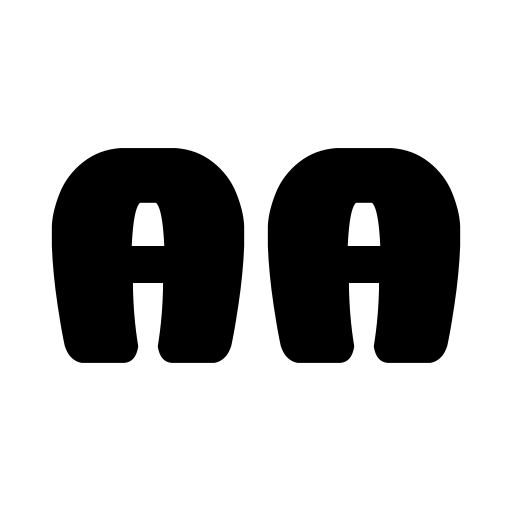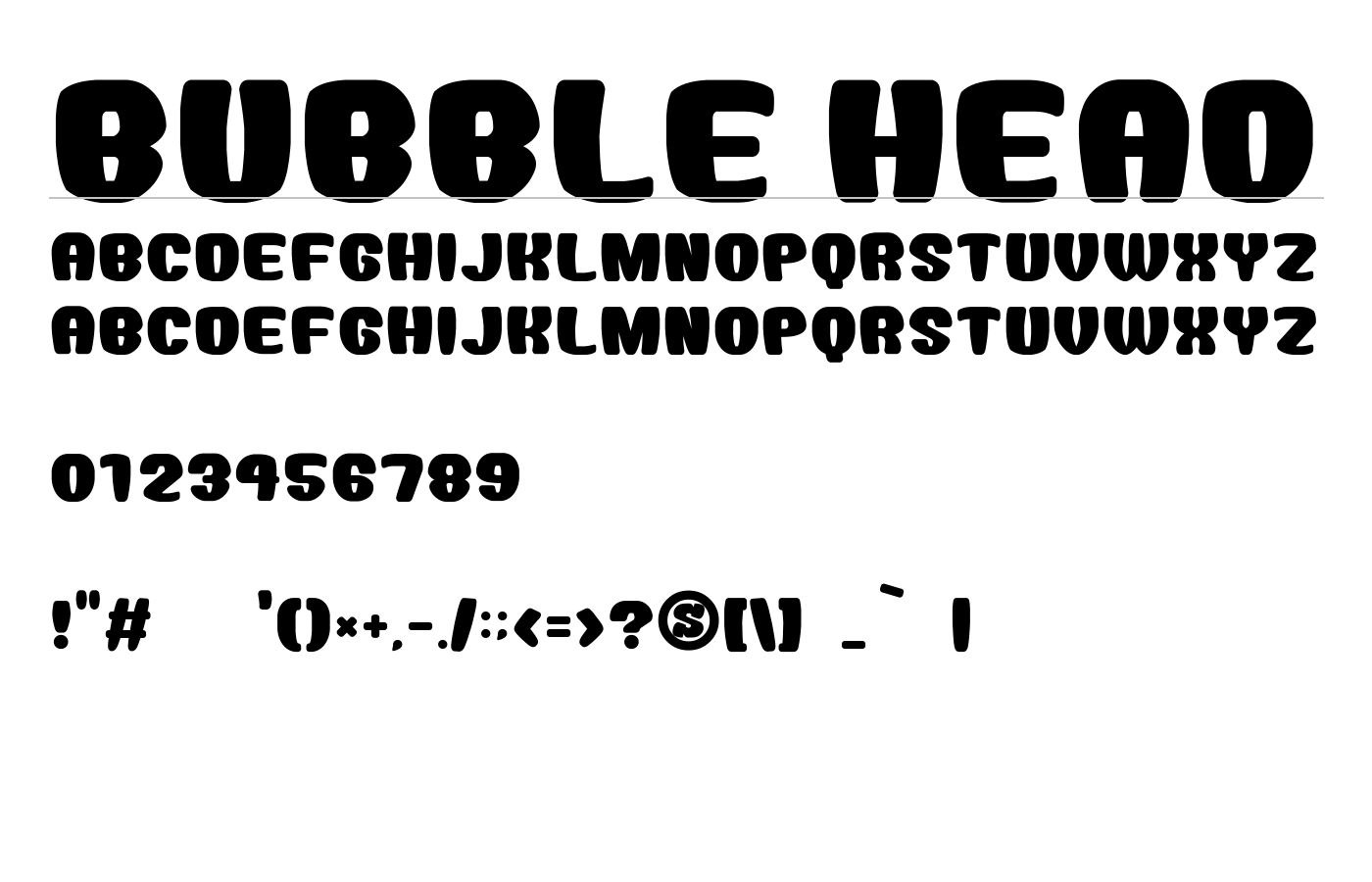
Bubble Head is a bold, rounded sans serif font with a playful and chunky appearance. Its soft, thick strokes and high x-height give it a friendly, approachable feel, making it ideal for fun, casual designs like logos, posters, and children's materials where a whimsical, eye-catching style is desired. This font’s unique, bubbly shapes add personality and charm without sacrificing readability.
Bubble Head Font
About Bubble Head Font